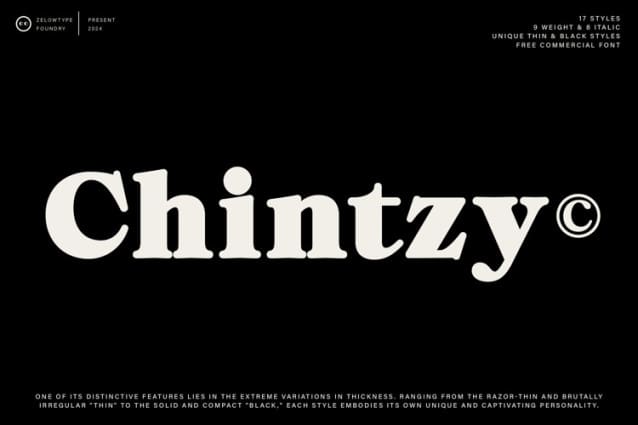
ZT Chintzy Font pays homage to the expressive, soft, and rounded serif typography of the 1960s and 1970s era. Its gentle and captivating serifs evoke warmth and nostalgia reminiscent of that era’s typefaces. As a bold vintage-style serif font, “ZTChintzy” boasts strong characters and subtle features. Equipped with alternatives, stylistic variations, and several standard ligatures, the font offers extensive versatility. With 17 styles available, including 8 different weights, “ZTChintzy” caters to a wide range of design needs.
ZT Chintzy Font
| Classification: | Serif Fonts, Style / Aesthetic Fonts |